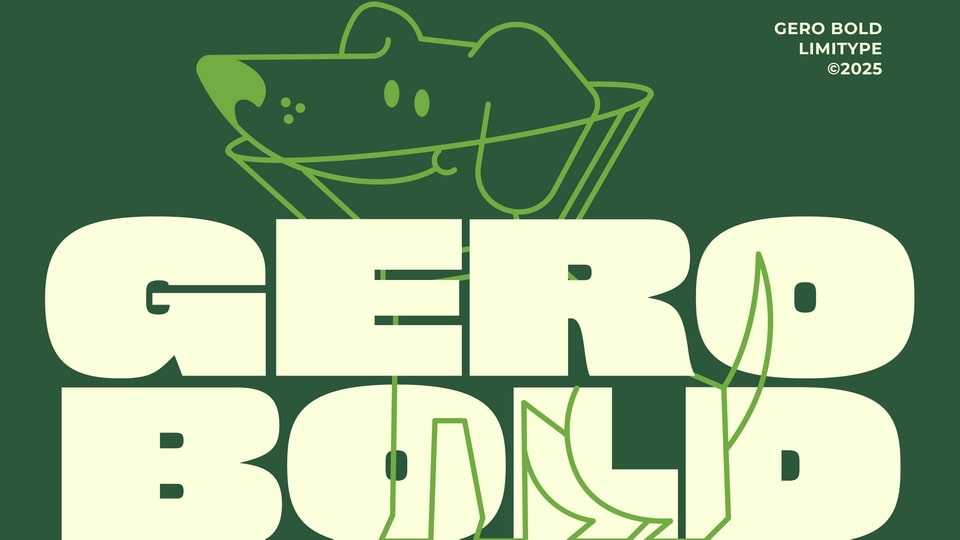
Download Gero font, a bold and chunky typeface with a strong and striking display style. Its dense, Solid letterforms give a modern and confident impression.